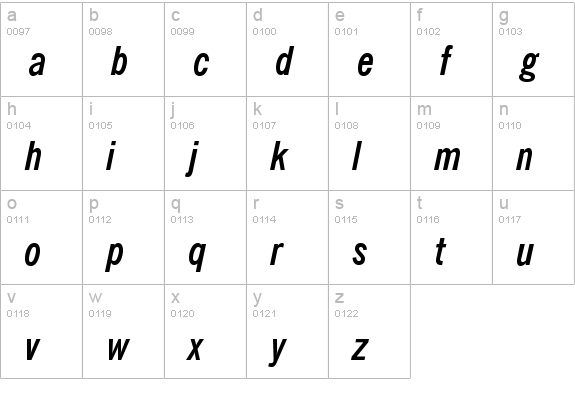
News Gothic Bold Condensed Italic Font Details
News Gothic Bold Condensed Italic is a strong, high-contrast, condensed-width, italic variant in the News typeface family \xE2\x80\x94 well suited to headlines, attention-grabbing titles, and strong calls-to-action.
News Gothic Bold Condensed Italic font is a sleek and modern typeface that exudes confidence and sophistication. Its bold and condensed design makes it perfect for headlines, banners, and other display purposes where you want to make a bold statement. This font is ideal for projects that require a strong and impactful look, while the italic style adds a touch of elegance and flair. Whether you are designing a poster, a logo, or a website, News Gothic Bold Condensed Italic font is sure to make your text stand out. The best part? News Gothic Bold Condensed Italic font is available for free download at FontsMarket.com. So go ahead and give your design projects a professional and polished look with this striking font.